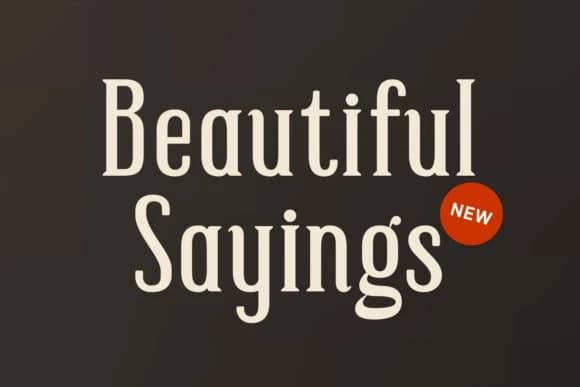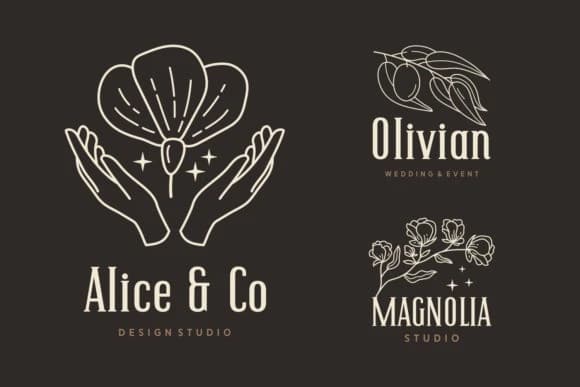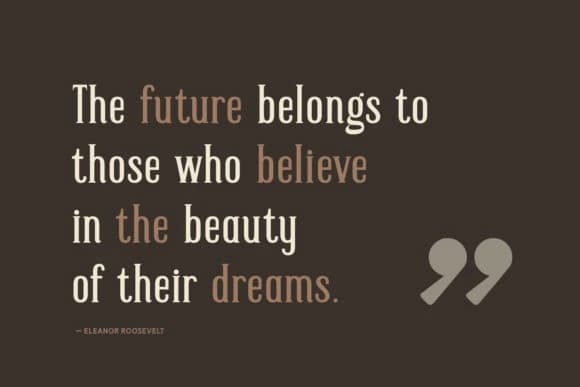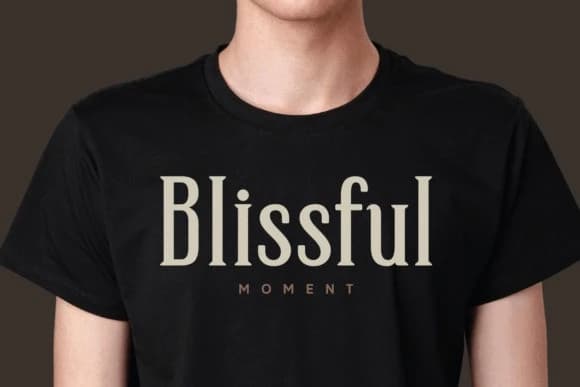
Beautiful Sayings Font
Beautiful Sayings Font is an epitome of the perfect Serif font permeating elegance, and modernity in each stroke. This font is an authentic visual treat for photographers, for it adds the needed emphasis on accent details effortlessly.